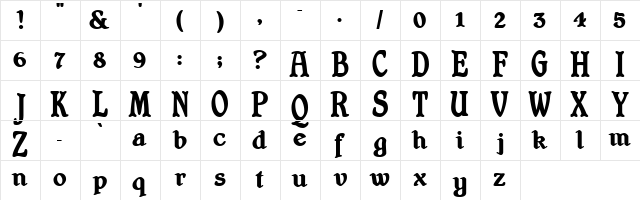
ShrewsburyTitling Bold
Design Context for ShrewsburyTitling Typeface
ShrewsburyTitling is a composed and adaptable typeface that performs quietly and consistently across a wide range of design contexts. Its bold stroke weight gives it real presence on the page.